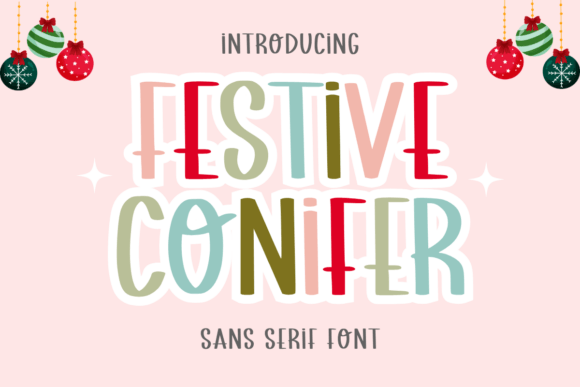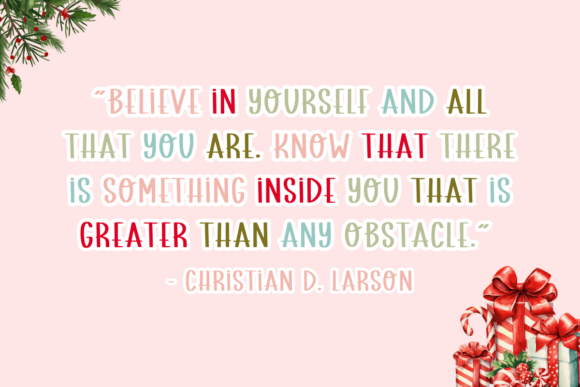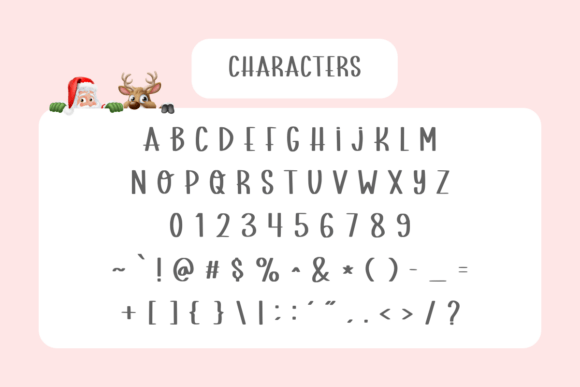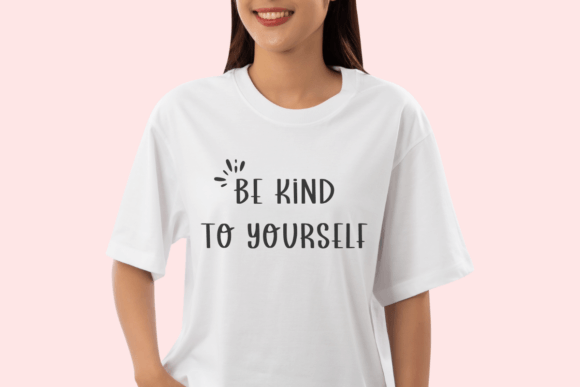
Festive Conifer Font: A Cute Handwritten Sans Serif for Cricut Crafts
About the Festive Conifer Font
Crafted with precision, the Festive Conifer Font is ready to bring your ideas to life. **Festive Conifer** is a fun, cute handwritten sans-serif font. It’s great for notes, planners, journals, greeting cards, invitations, scrapbooks, calendars, and more. Perfect for teachers, diaries, printables, and KDP interiors like templates, workbooks, and to-do lists.
Its playful, informal style makes it ideal for projects requiring a friendly and approachable feel, such as children’s books, branding for craft businesses, or social media graphics. However, its handwritten nature and inconsistent letterforms make it unsuitable for body text or situations demanding high readability, like websites or lengthy documents. Avoid using it in UI design or any context requiring precise kerning and spacing.
Festive Conifer pairs well with clean sans-serif fonts like Open Sans for a balanced contrast, or a more geometric sans-serif like Futura for a modern twist. A classic serif like Garamond could add sophistication, while a script font like Pacifico would enhance the hand-drawn aesthetic.
The font’s core personality is undeniably cheerful and approachable. Its uneven strokes and slightly quirky letterforms convey a sense of handmade charm and warmth, making it perfect for brands that value authenticity and a personal touch.